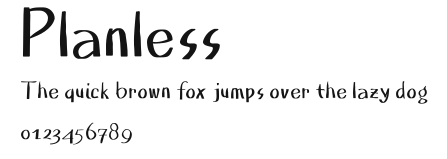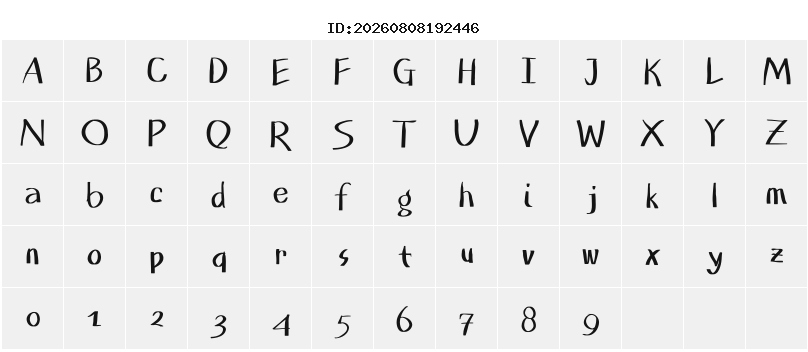
• Font Name: Planless
About Planless.ttf
Planless.ttf is a modern, elegant sans-serif font designed for ultimate readability and visual harmony. Perfect for branding, headlines, web design, and print materials.